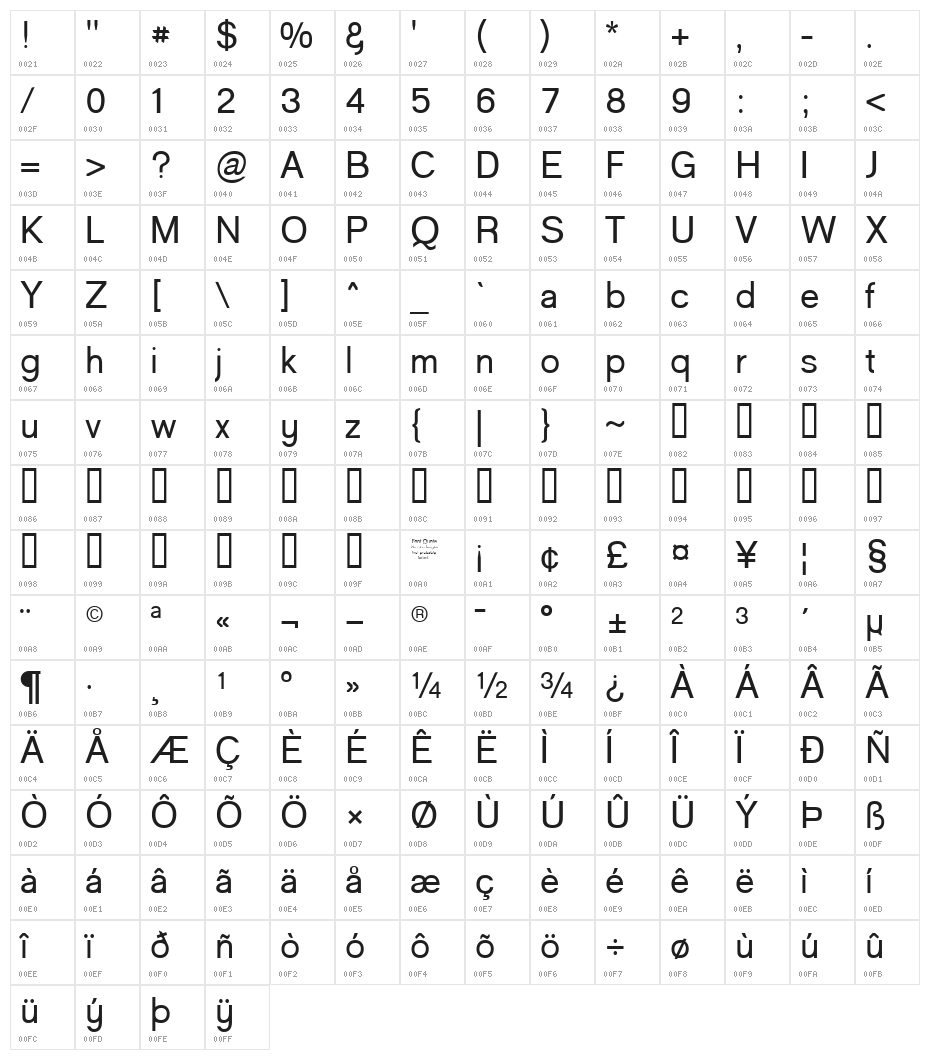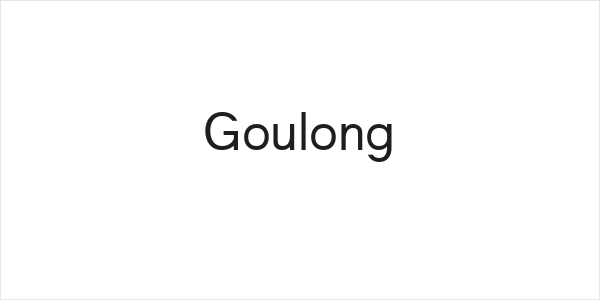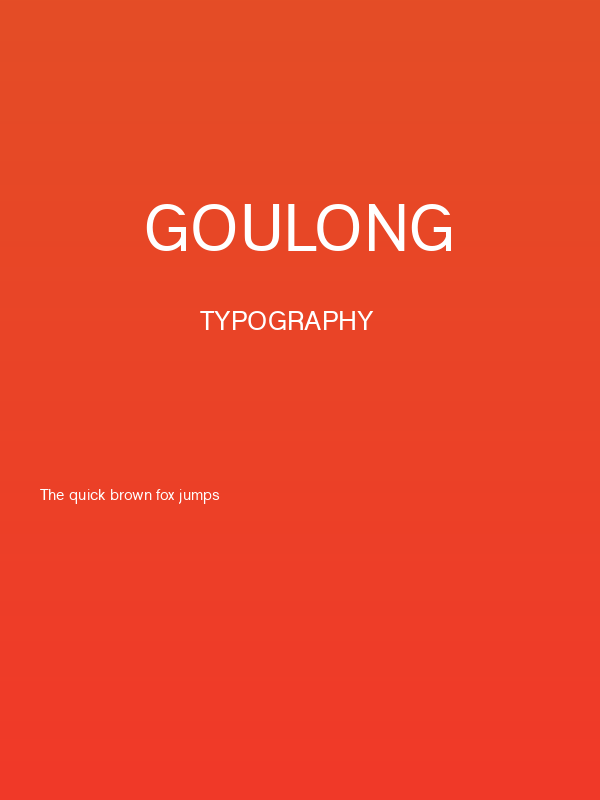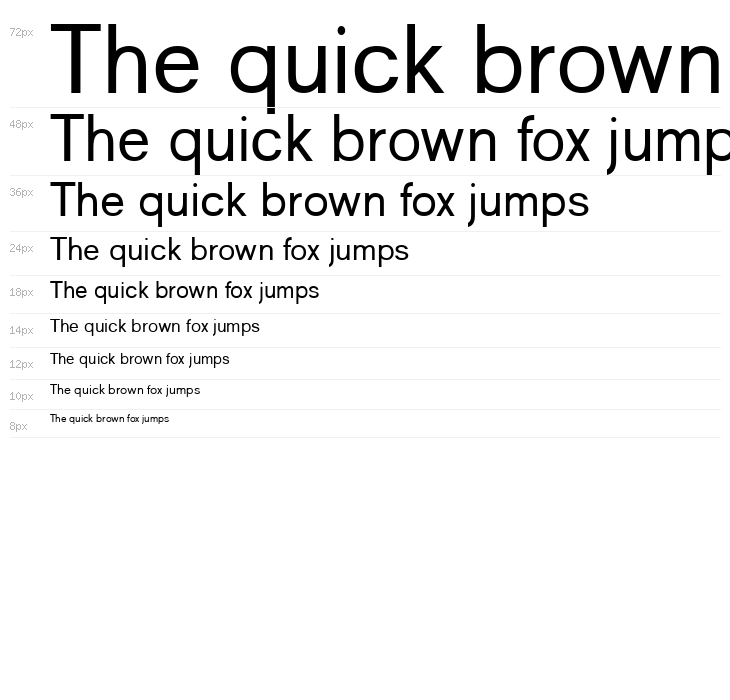
Goulong Font
Goulong Description
This font features a clean and modern sans-serif design, characterized by its uniform stroke width and lack of serifs. The characters are well-proportioned, with a slightly rounded appearance that adds a touch of friendliness to the overall look. The uppercase letters are bold and assertive, while the lowercase letters maintain a consistent style that complements the uppercase set. The numerals are clear and easy to read, making them suitable for a variety of applications. Special characters are included, offering versatility for different design needs. The overall design is minimalist, focusing on readability and simplicity.
| Proposed Projects | Ideal for digital interfaces, branding, advertising, and editorial design. |